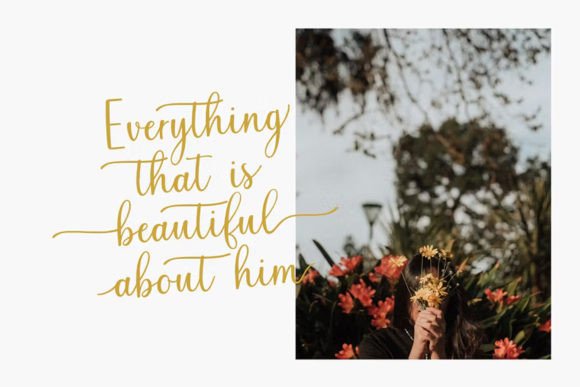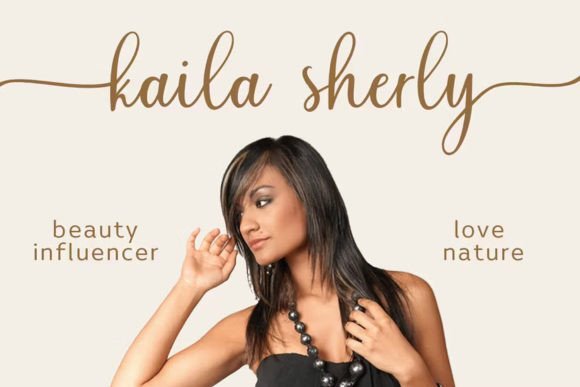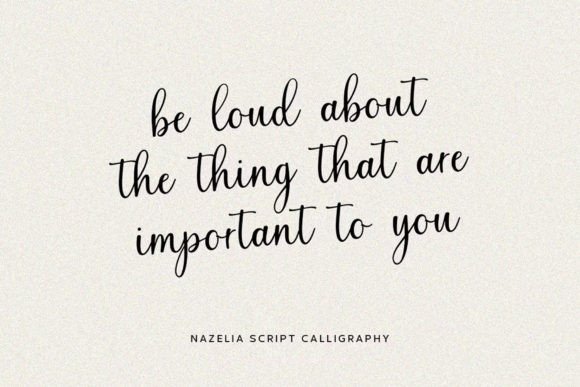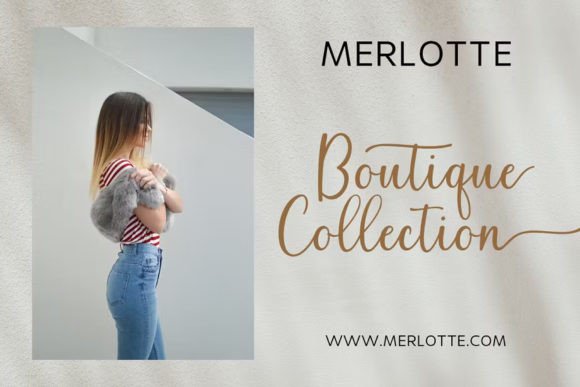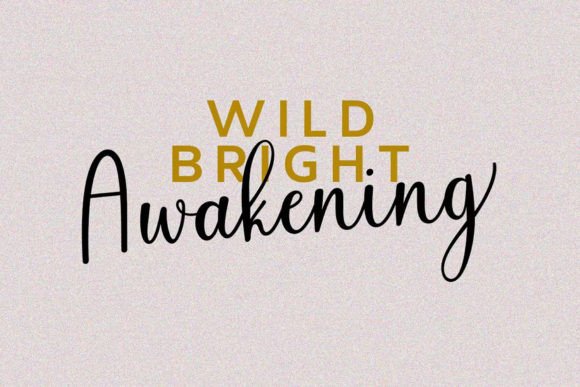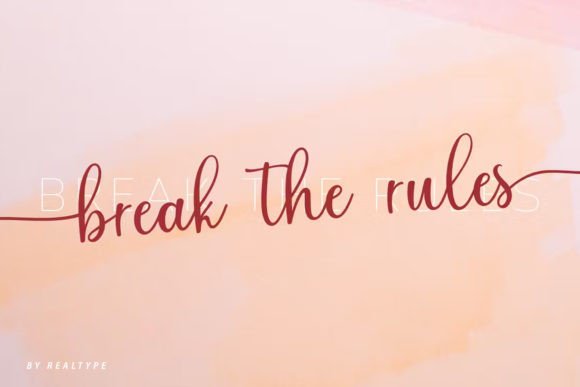
Introduction to Nazelia Script Font
Introducing Nazelia Modern Script Calligraphy Font.
This font is very easy to use and playful You can explore to create a combination that would be nice.
Key Features of Nazelia Script Font
Why Choose Nazelia Script Font?
Nazelia Script Font offers exceptional quality and versatility, making it a valuable addition to your design toolkit. Whether you’re creating for personal projects or commercial use, Nazelia Script Font delivers professional results.